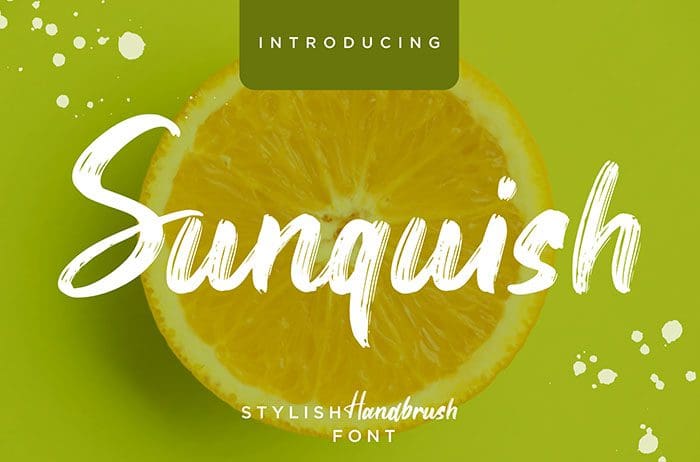
Sunquish Brush Font
Sunquish is a fresh stylish hand Brush Font with natural movement will make your latest project looks awesome. Sunquish is perfect for branding projects, logo, social media posts and more. Thanks to Creatype Studio for sharing this font! Take a look at this portfolio for more of his stunning fonts.